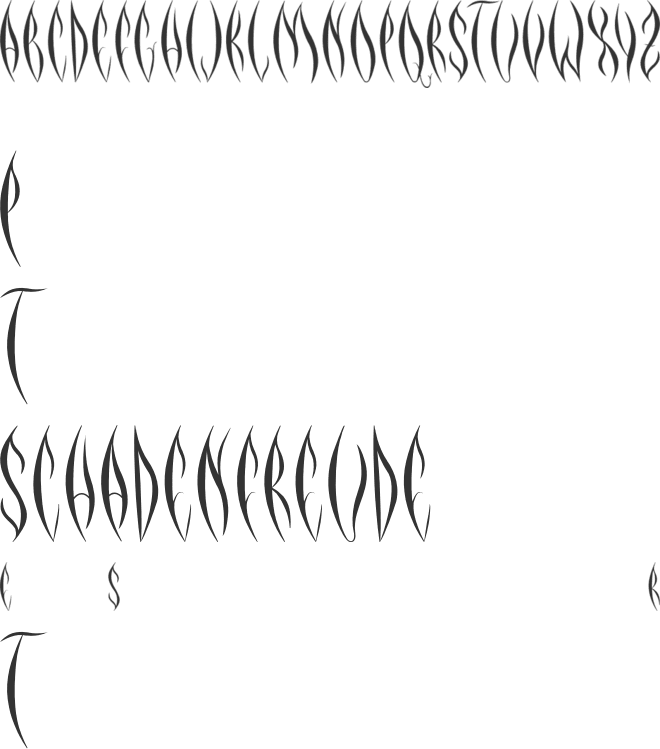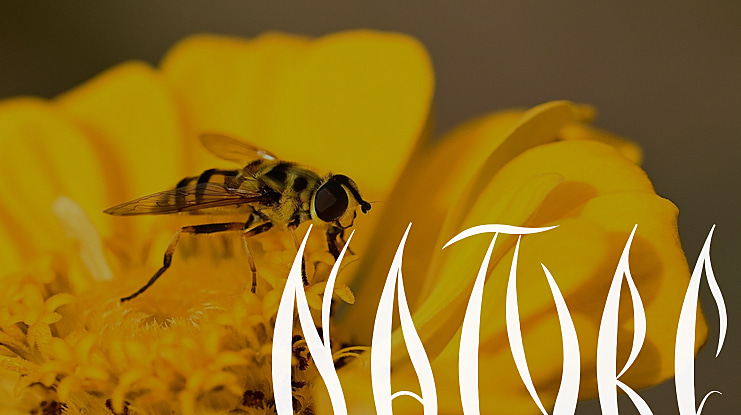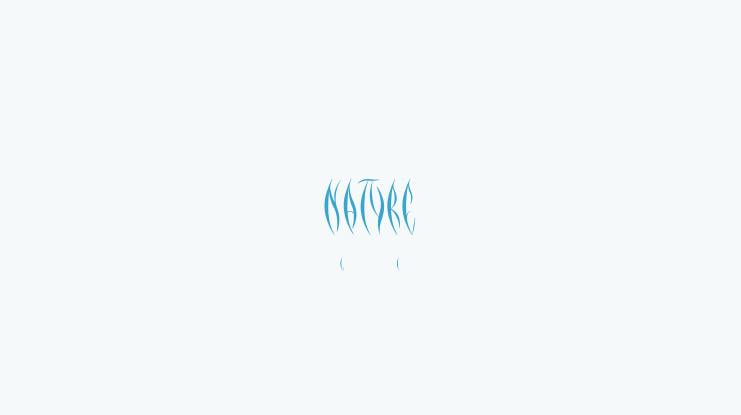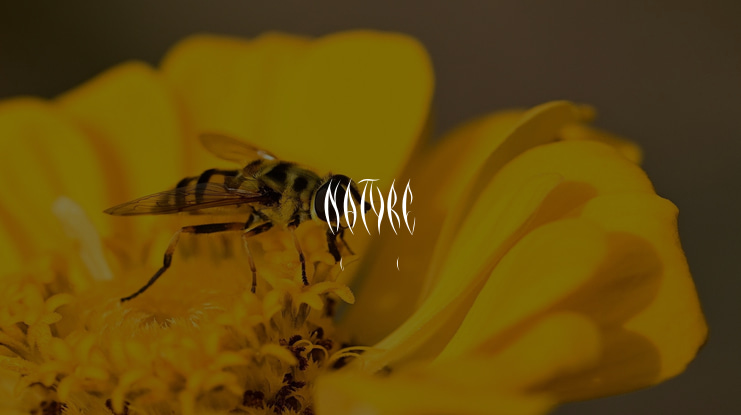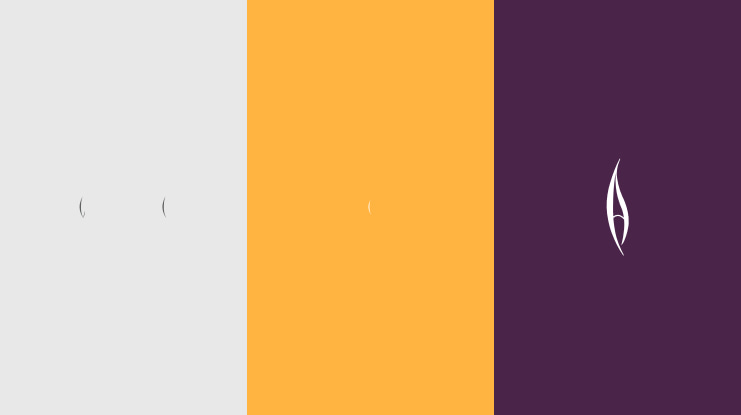
NATYRE Font
Maya DeNofio
This font was created for my typeface class. It was inspired by old sheet music covers from the 1920s. It gradually turned into an expression of nature.